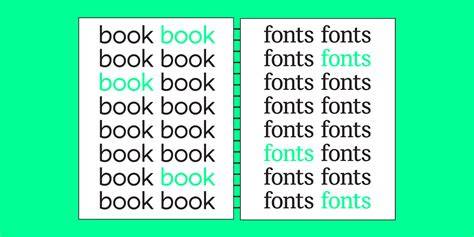
Fonts For Book – Find The Right Typeface For Your Book
Books are a great way to express yourself and show the world what you have to say, but the font you choose for your book can make or break it. Fonts can make your words look beautiful or make them seem unreadable. Choosing the right font for your book is essential for getting your message across.
The Basics of Fonts
When it comes to font selection for books, there are several factors to consider. First, you need to think about the overall look and feel of the book. Different fonts can evoke different emotions and can be used to create a certain atmosphere. For example, a formal book might use a serif font while a more casual book might use a sans-serif font.
Also, you need to think about the type of book you are writing. Different types of books need different fonts. For instance, a book of poetry might need a font with a lot of personality while a nonfiction book might need a more straightforward font.
Choosing the Right Font for Your Book
Once you have considered the overall look and feel of your book, you need to think about the type of font you want to use. There are several different types of fonts, each with its own unique characteristics. Here is a brief overview of the most popular fonts for books:
Serif Fonts: Serif fonts are traditional fonts with a classic look and feel. They are often used in formal books, such as biographies or novels. Some popular serif fonts include Times New Roman, Garamond, and Baskerville.
Sans-Serif Fonts: Sans-serif fonts are modern fonts that don’t have the classic serifs. They are often used in casual books, such as children’s books or graphic novels. Popular sans-serif fonts include Helvetica, Arial, and Futura.
Script Fonts: Script fonts are whimsical fonts with a lot of personality. They are often used in books that need an extra touch of style, such as cookbooks or fashion books. Popular script fonts include Lobster, Brush Script, and Pacifico.
Tips for Choosing the Right Font
When it comes to choosing the right font for your book, there are a few tips that can help you make the right decision. First, try out a few different fonts to see what works best. Most word processing programs have a range of fonts to choose from, so you can experiment until you find the right one.
Also, consider the size of the font. Different fonts look better at different sizes, so you need to experiment to find the right size for your book. Try to use a font size that is large enough to be easily readable but small enough to fit in the book.
Finally, think about the overall layout of the book. Different fonts can look good when used in different ways. For example, a serif font might look good when used for chapter headings but not for body text. Experiment with different fonts and layouts to find the best combination.
Choosing the right font for your book is essential for getting your message across. Different fonts can evoke different emotions and can be used to create a certain atmosphere. Serif fonts are traditional fonts with a classic look and feel, while sans-serif fonts are modern fonts that don’t have the classic serifs. Script fonts are whimsical fonts with a lot of personality. When it comes to choosing the right font for your book, try out a few different fonts to see what works best, consider the size of the font, and think about the overall layout of the book.